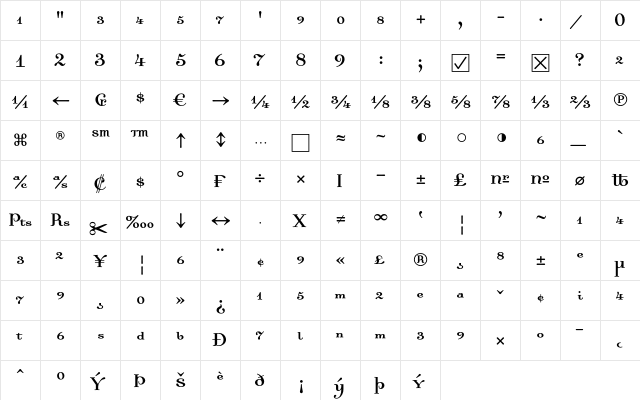
Dalliance RomanFractions Font Preview
Dalliance RomanFractions
Dalliance RomanFractions Font Details
| Style | RomanFractions |
Design Context for Dalliance Typeface
Dalliance takes a measured approach to typography — its balanced proportions and neutral character make it a reliable workhorse for both digital and print work.